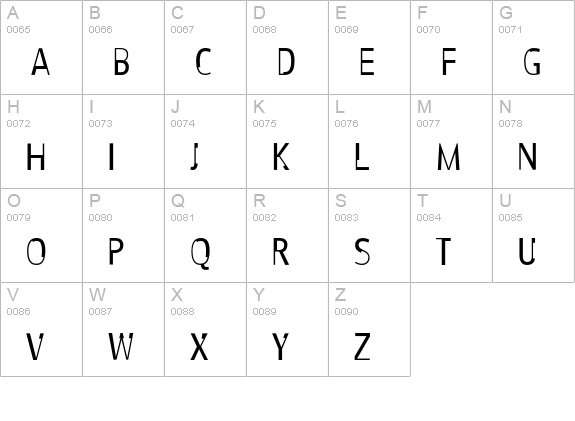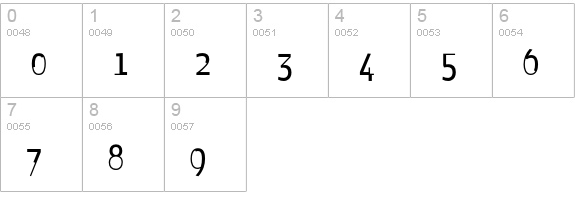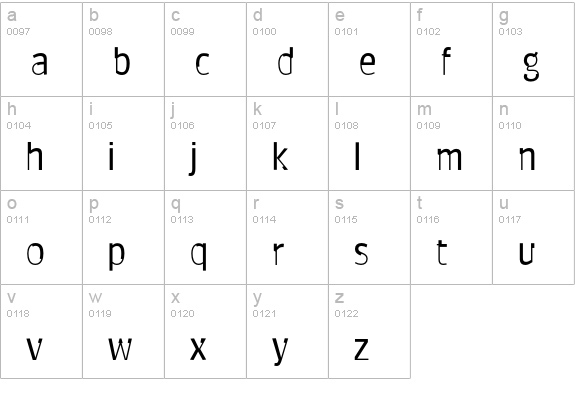
SaharaEF-Regular Font Details
SaharaEF-Regular is the standard, neutral variant in the SaharaEF typeface family \xE2\x80\x94 well suited to general body text, paragraphs, and standard typographic work.
SaharaEF-Regular font is a modern and stylish typeface that will add a touch of elegance to any design project. Its clean lines and balanced proportions make it perfect for a variety of applications, from branding and advertising to packaging and editorial design. This versatile font features a unique combination of geometric shapes and smooth curves, giving it a contemporary yet timeless appeal. Its legibility and readability ensure that your message will be communicated effectively, whether it's on a website, a poster, or a brochure. One of the best things about SaharaEF-Regular font is that it is freely available to download at FontsMarket.com. This means that you can access this high-quality font without any cost, making it a great choice for designers on a budget. By downloading it from FontsMarket.com, you can save money while still getting a top-notch font for your projects. So, if you're looking for a font that combines modern aesthetics with readability and affordability, look no further than SaharaEF-Regular font. Download it now from FontsMarket.com and start creating stunning designs that will leave a lasting impression.